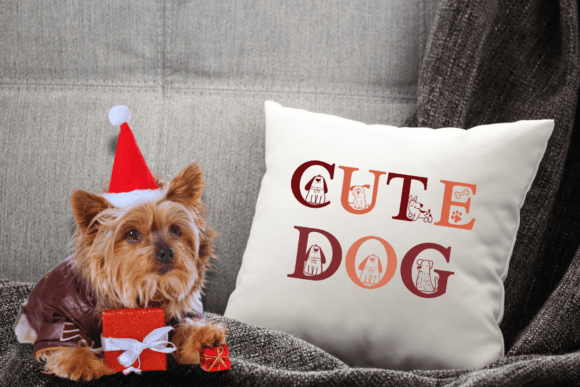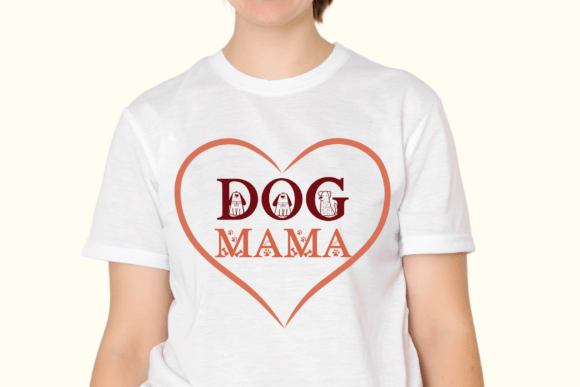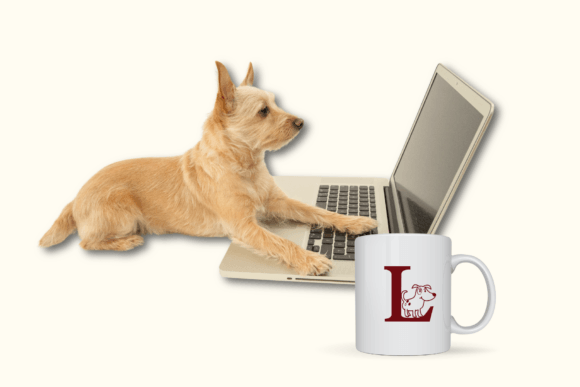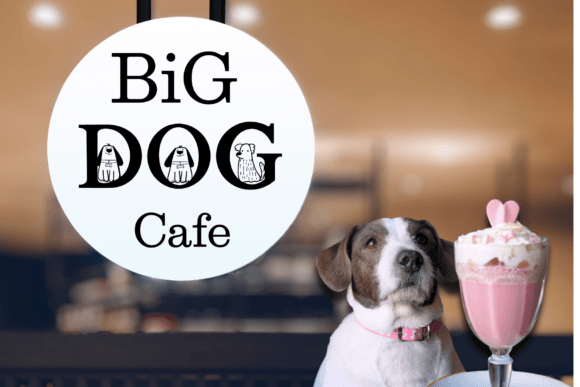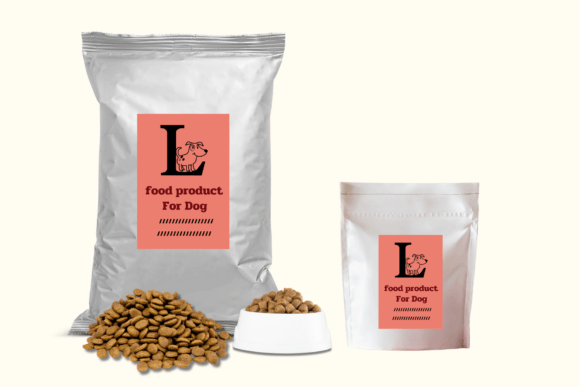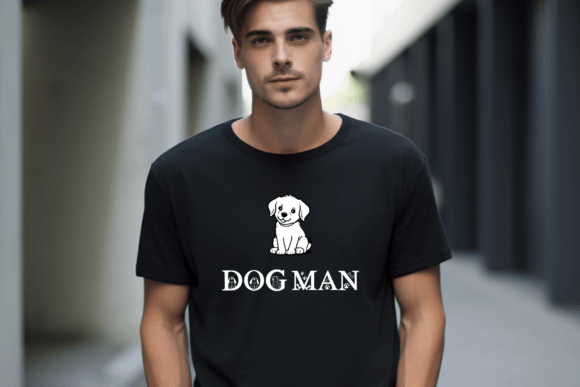
Introducing Dog Lover Font: Add a Playful Touch to Your Creative Projects
Are you a dog lover looking for a unique and fun way to express your creativity? Look no further than the Dog Lover Font, a charming decorative font that features playful dogs around the letters. This adorable font is perfect for adding a touch of whimsy to your creative projects, from T-shirts and DIY crafts to decorations and logos.
What is Dog Lover Font?
Dog Lover Font is a decorative font that showcases playful dogs in various poses and activities, carefully crafted to surround each letter of the alphabet. The font is designed to bring a smile to your face and add a personal touch to your designs. Whether you’re a dog owner, a dog enthusiast, or simply someone who loves fun and quirky designs, this font is sure to delight.
Features of Dog Lover Font
- Playful and Whimsical Design: The Dog Lover Font features adorable dogs in various playful poses, making it perfect for adding a fun touch to your designs.
- Decorative and Unique: Each letter of the alphabet is carefully crafted with dog-themed decorations, making your designs stand out from the crowd.
- Versatile: The font is suitable for a wide range of creative projects, from T-shirts and DIY crafts to decorations, logos, and more.
Uses of Dog Lover Font
The Dog Lover Font is perfect for a variety of creative projects, including:
- T-Shirts and Apparel: Add a playful touch to your T-shirt designs, hoodies, and other apparel.
- DIY Crafts: Use the font to create personalized DIY crafts, such as signs, banners, and decorations.
- Logos and Branding: Create unique and memorable logos for dog-related businesses, such as pet stores, dog daycare centers, and veterinary clinics.
- Decorations: Use the font to create personalized decorations, such as wall art, home decor, and party decorations.
Tips for Using Dog Lover Font
Here are some tips for getting the most out of the Dog Lover Font:
- Experiment with Colors: Try pairing the font with different colors and textures to add depth and interest to your designs.
- Mix and Match: Combine the Dog Lover Font with other fonts and graphics to create unique and eye-catching designs.
- Keep it Simple: Don’t be afraid to keep your designs simple and clean, allowing the font to be the focal point.
The Dog Lover Font is a fun and playful decorative font that’s perfect for adding a touch of whimsy to your creative projects. With its unique design, versatility, and ease of use, this font is sure to delight designers and crafters of all levels. Whether you’re a dog lover, a designer, or simply someone who loves fun and quirky designs, the Dog Lover Font is a must-have addition to your font collection.